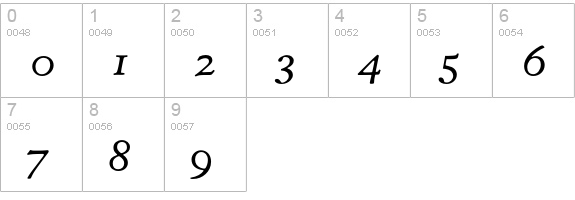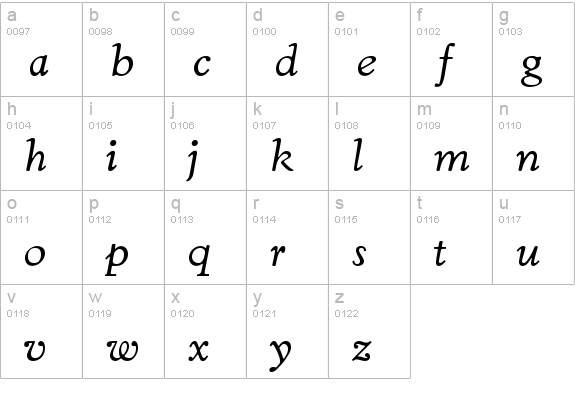
EldoradoMicro-Italic Font Details
EldoradoMicro-Italic is a distinctive, italic variant in the EldoradoMicro typeface family \xE2\x80\x94 well suited to design and typography projects.
EldoradoMicro-Italic is a sleek and modern font that exudes elegance and sophistication. With its delicate italic styling and intricate detailing, this font is perfect for adding a touch of refined charm to any design project. The slim, elongated letterforms flow gracefully across the page, creating a sense of movement and fluidity. EldoradoMicro-Italic is not only visually stunning but also highly versatile, making it suitable for a wide range of applications, from branding and advertising to editorial and web design. Whether you're looking to create a logo that stands out from the crowd or design a stylish website that leaves a lasting impression, this font has got you covered. Best of all, EldoradoMicro-Italic is completely free to download at FontsMarket.com. So why wait? Add this exquisite font to your collection today and elevate your designs to new heights of sophistication and style.